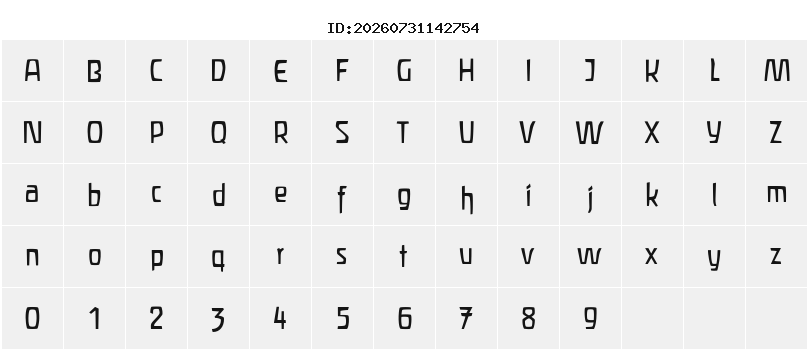
• Font Name: Liant
• Full Font Name: Liant-Regular
• PostScript Name: Liant-Regular
About Liant.ttf
Liant.ttf is a modern, elegant sans-serif font designed for ultimate readability and visual harmony. Perfect for branding, headlines, web design, and print materials.